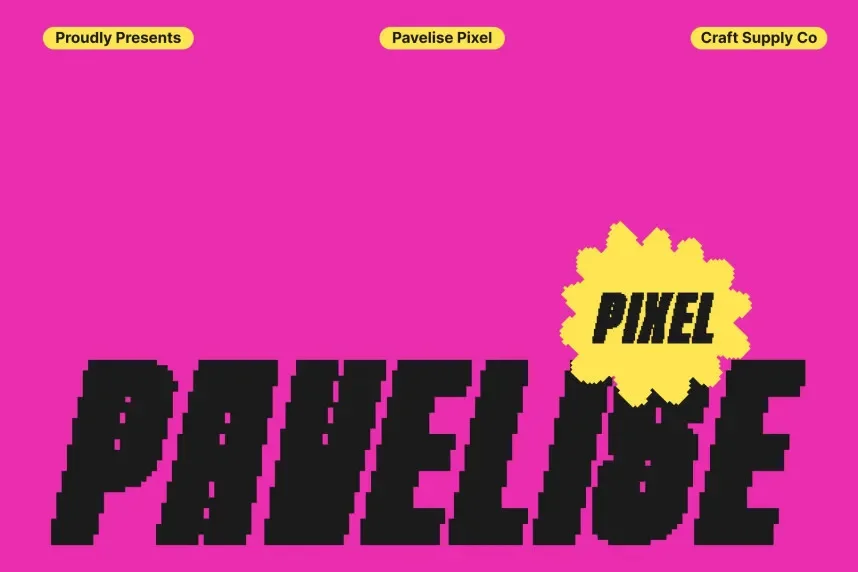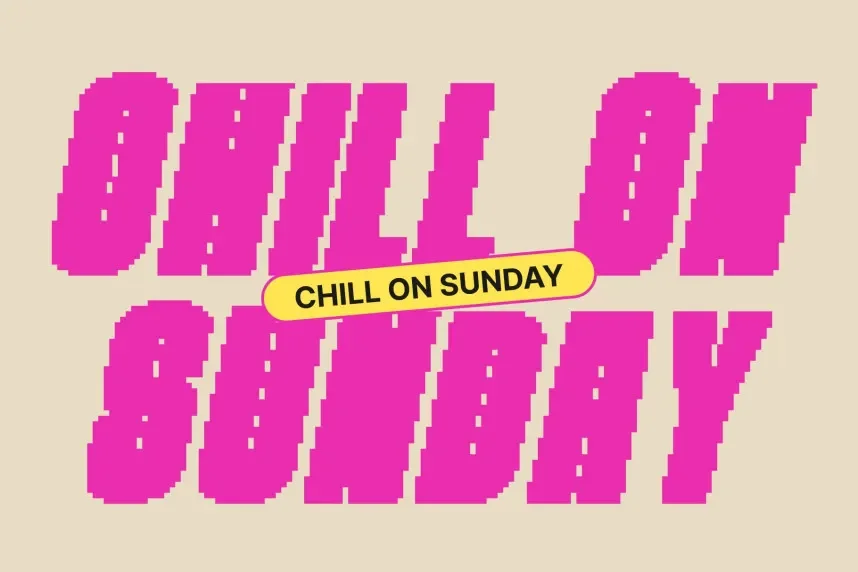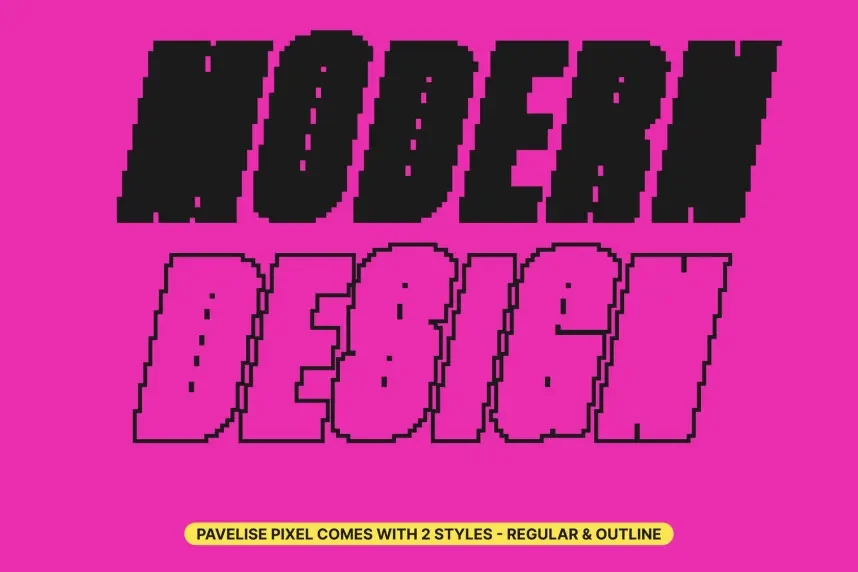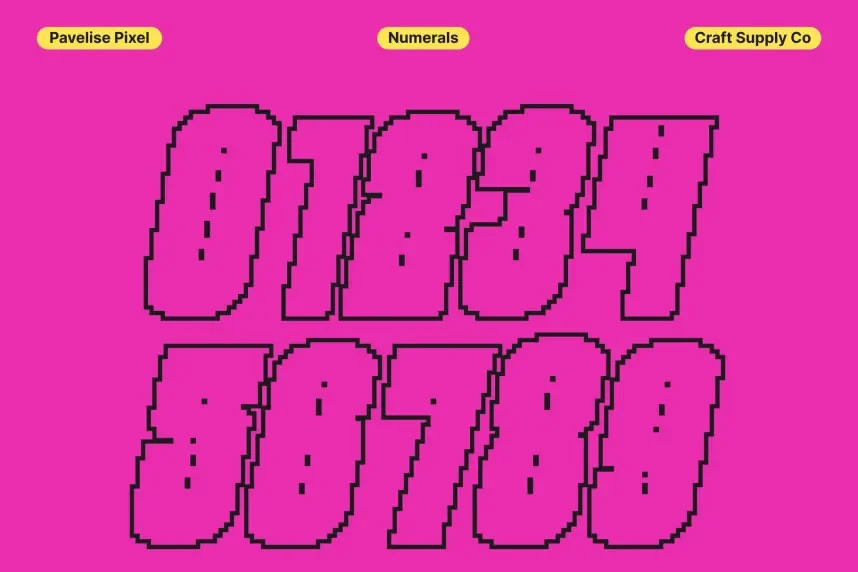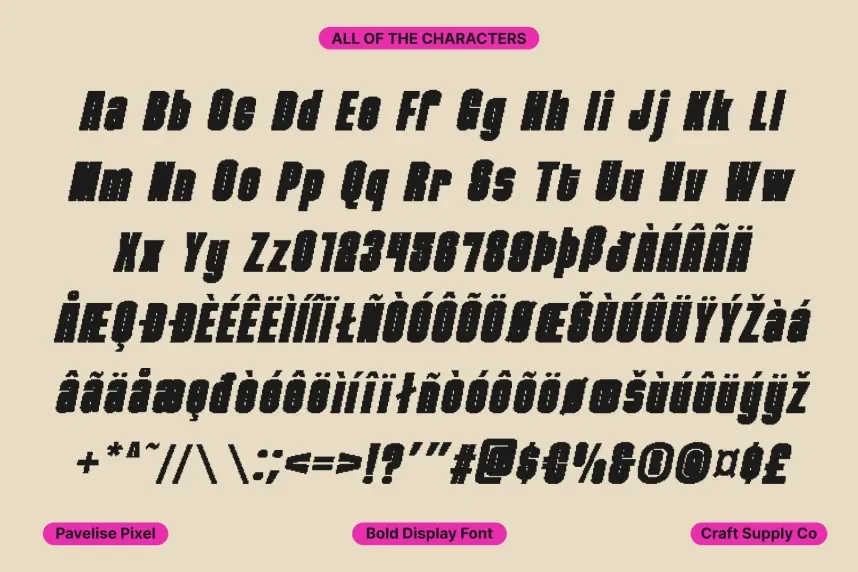
Pavelise Pixel Font supports projects that rely on pixel-accurate typography for visual consistency. Designers often need fonts that align cleanly within low-resolution layouts.
This font is a pixel typeface featuring uniform grid construction and consistent stroke placement. The letterforms prioritize clarity over decoration, helping text remain readable in constrained spaces.